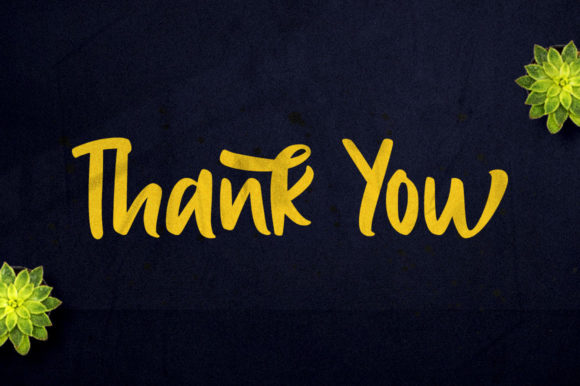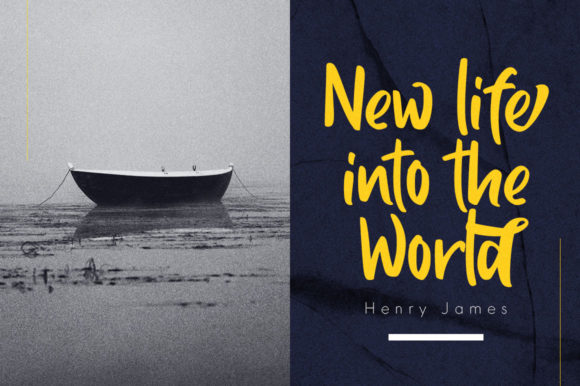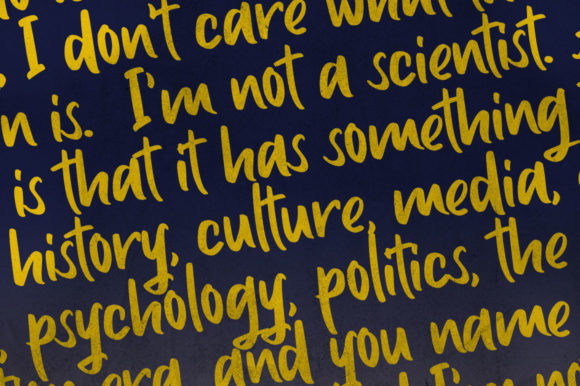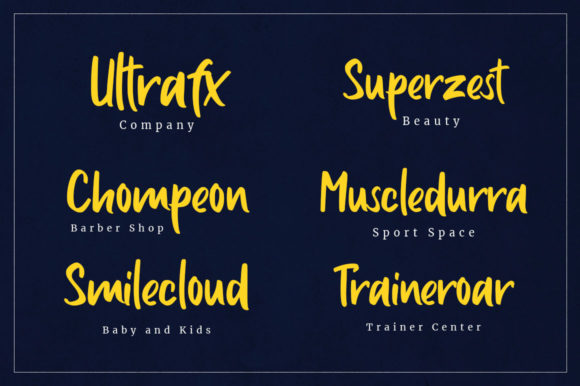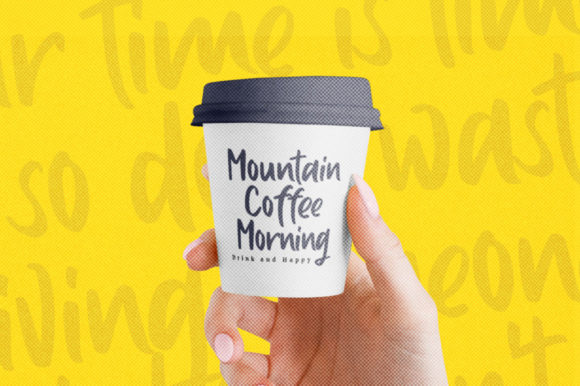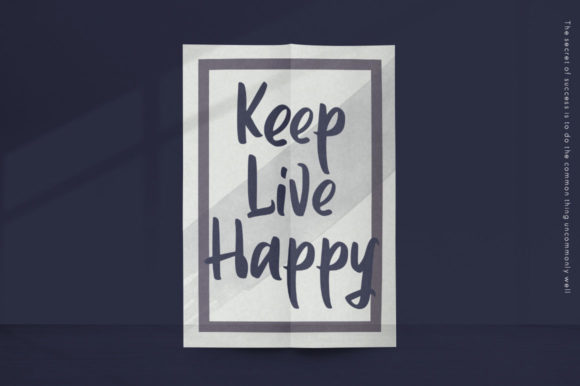
About Javago Script Font
Javago Script is a cool, friendly and trendy handwritten font. Not too thin and not too thick, balanced and varied, this was designed to enhance the beauty of your projects.